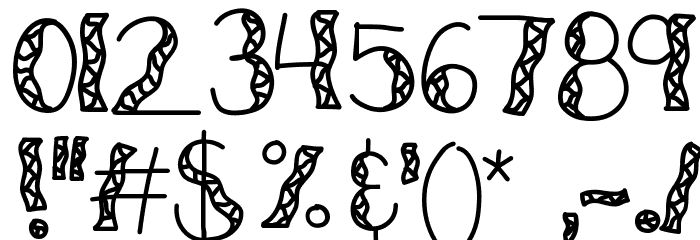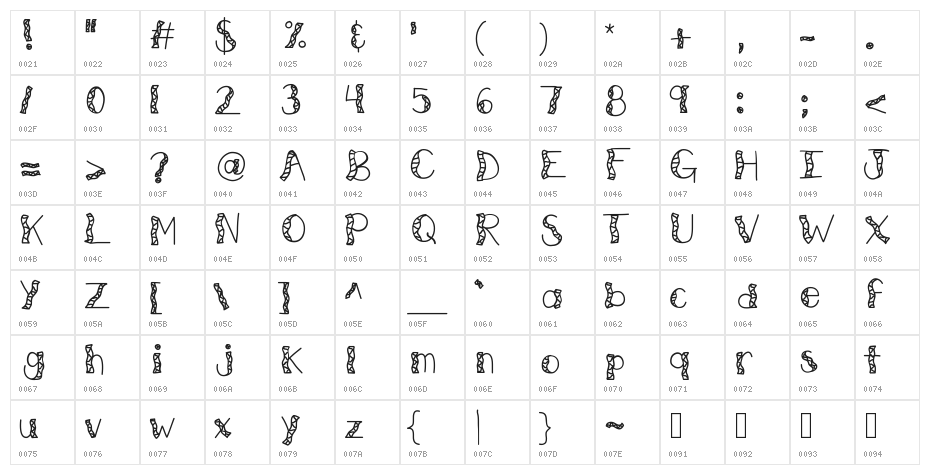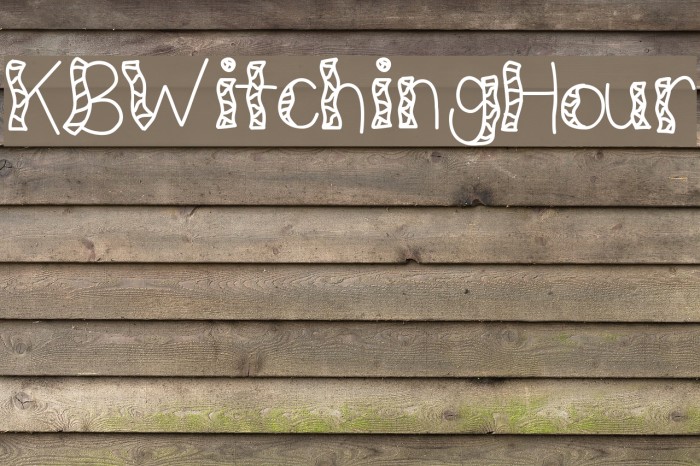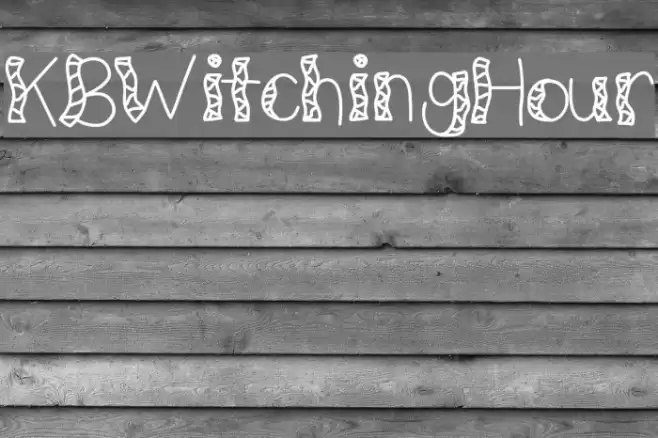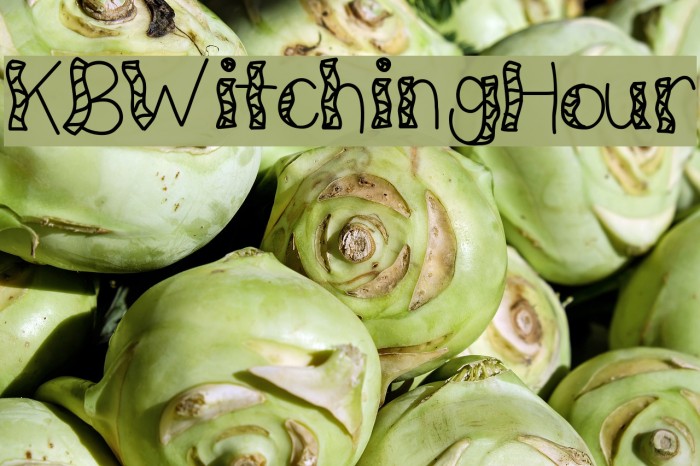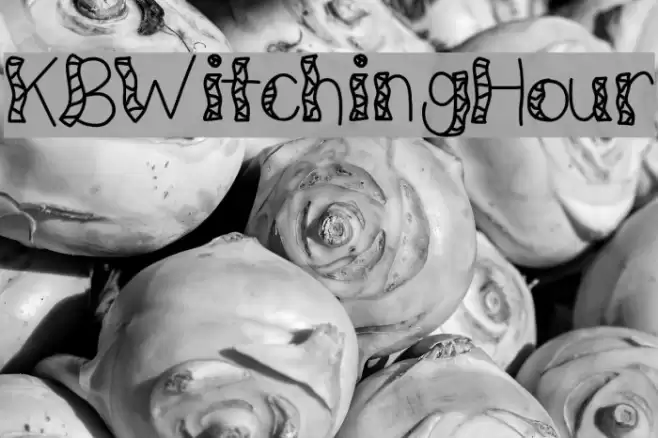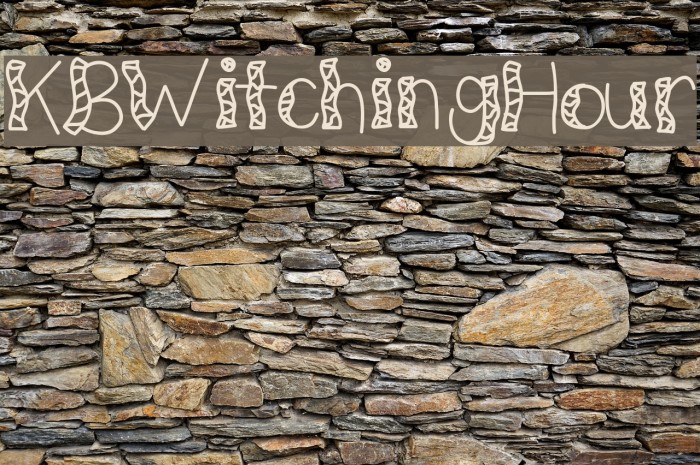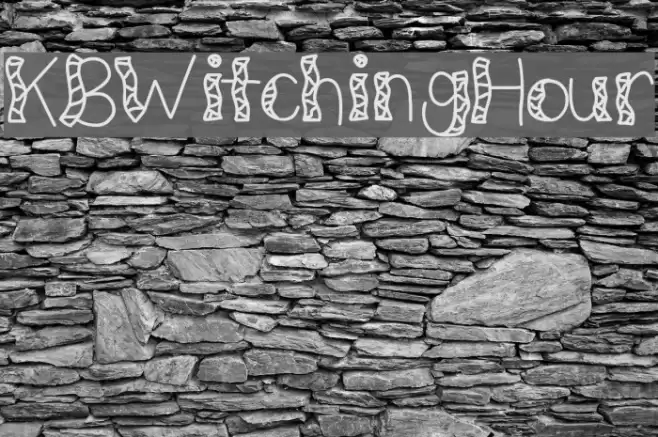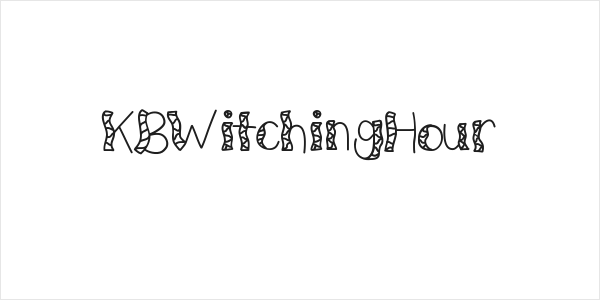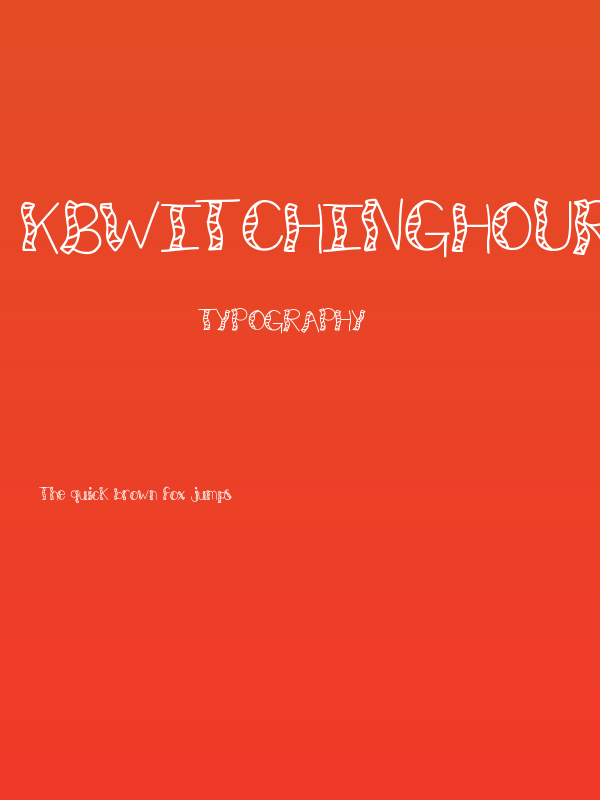
KBWitchingHour Font
KBWitchingHour Description
This font features a whimsical and playful design, characterized by its hand-drawn, irregular strokes that mimic a spooky, Halloween-inspired aesthetic. Each letter is uniquely crafted with a textured, web-like pattern, giving it a distinctive and quirky appearance. The uppercase and lowercase letters maintain a consistent style, with exaggerated curves and angles that enhance its decorative nature. Numbers and special characters follow the same thematic design, ensuring a cohesive look across all glyphs. This font is perfect for projects that require a touch of magic and mystery.
| Proposed Projects | Ideal for Halloween-themed invitations, posters, children's books, and creative branding projects. |